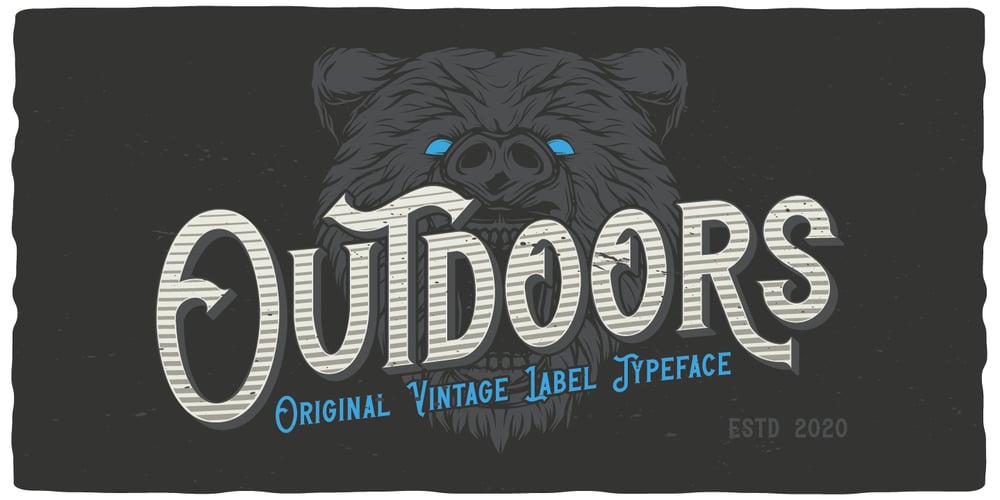
Outdoors Font Family was designed by Oleg Voznyy and published by Vozzy. Outdoors contains 5 styles and family package options. Introducing a vintage label layered font named Outdoors. A lot of punctuation and multilingual symbols. Also alternates for all lowercase. All set you can see at the preview. This strong typeface is perfect for lettering on vintage style labels, posters, t-shirts, logo etc.